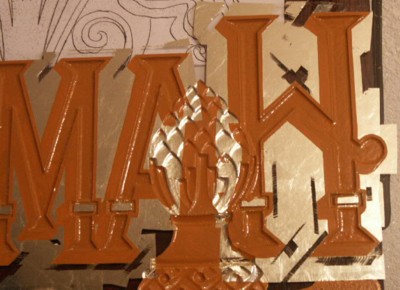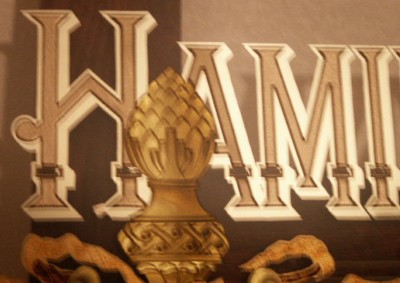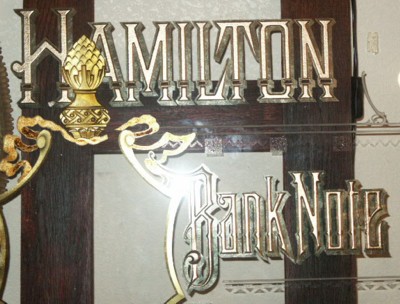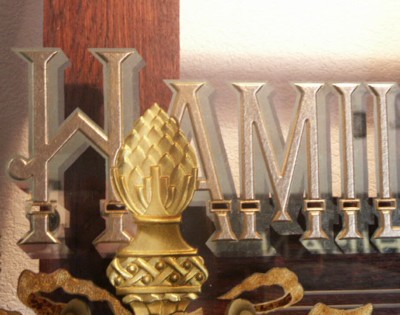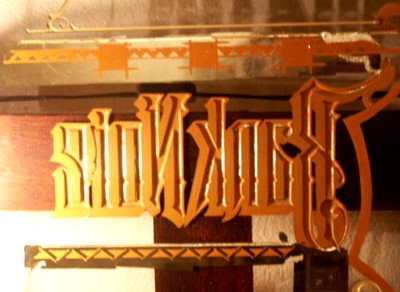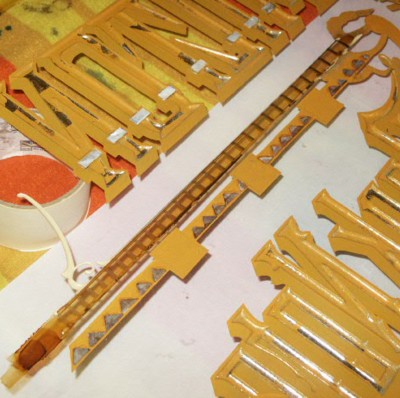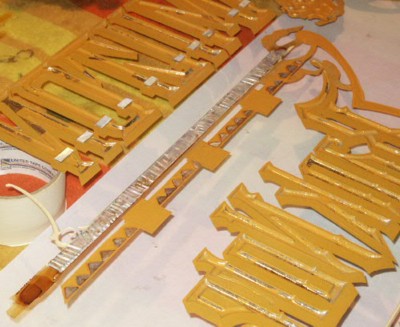
Hamilton Bank Note reverse glass sign, Step-by-Step Part 3
The line work is "over run" at the ends and then trimmed back to leave a sharp corner.
This shows the "over run" ends after they have been trimmed back.
And, here it is from the front.
Here it is from the front. The blemishes in the drop shade are really just reflections from around my studio.
Next, a secondary drop shadow was added in in paladium leaf with much the same process, water gilded, backed-up, trimmed, and excess removed. This same drop shadow was also added to "Bank Note" and "Company" text.
Step 6 - Finishing Sandcarved Scrollwork
First, the sandcarved areas to be finished were sealed with a coat of Frog Juice. Next, I applied water based Wunda Size to the same areas. Using the Wunda Size, I can then back up the gild with any solvent based product and be ensured that the gild won't be compromised. After the size had set, I applied Sepp Leaf's Custom Gold (MN002) mica powder. I like to use a trick Rick Glawson taught me of putting the mica powder in a baby's sock as a pounce bag (it's in the picture) and pouncing the mica powder over the size. After a good application, the powder is dusted around with a dusting brush and the excess removed.
I then backed-up the entire area with the mica powder mixed into Window Spar varnish. After doing so, I noticed it still wasn't 100% opaque, so I backed it up again with Decor ochre mixed with a touch of white One-Shot. After the paint was dry, I scraped off the excess at the edge of the sandcarving with a razor blade.
Here's a close-up.
Step 7 - Additional Ornamentation
I water gilded over the acid etching with 18K lemon gold. Again, I over ran my back painting and went back and trimmed it to a sharp corner.
Here, in the strip between the two sandcarved lines, I painted in a graduated glaze of vertical stripes. I then sealed over the glaze with some tinted shellac.
I adhered Mother of Pearl pieces into the open rectangle ornaments of the word Hamilton. I also adhered individual triangles of Dark Tahitian shell in the strip next to the acid etching. It could have been done in one strip, but it's easier to get any air bubbles out with the smaller pieces. I then adhered a strip of Rippled Abalone shell over the tinted shellac area. All these areas of shell will be surface gilded with aluminum leaf so they can be painted over without losing their lustre.
Here it is from the front. The abalone strip won't appear so bright when the finished piece is under normal lighting conditions. Also, the glazed stripes didn't come out quite as pronounced as I would have liked, but I figured it wasn't worth reworking. Mainly because a portion of the abalone is adhered over the ribbon, and removing it could pull it up, then I'd really be going backwards.